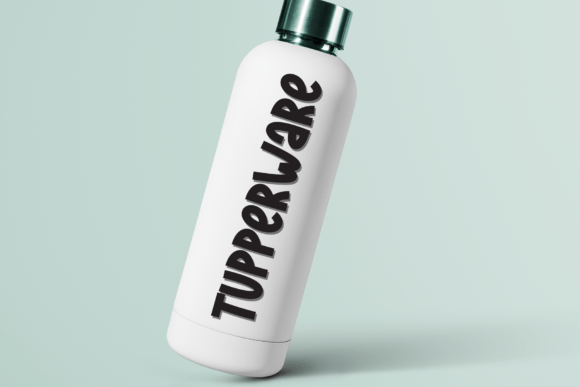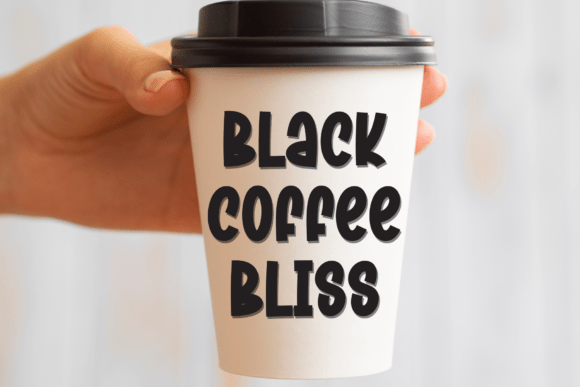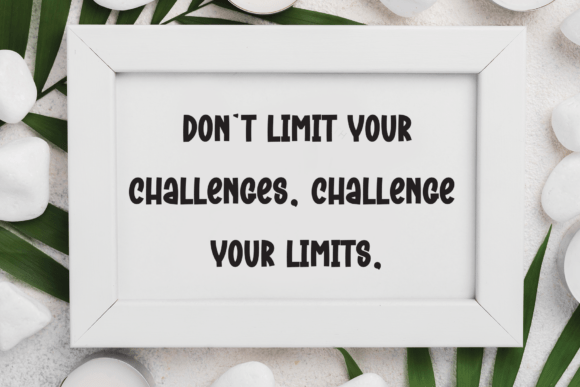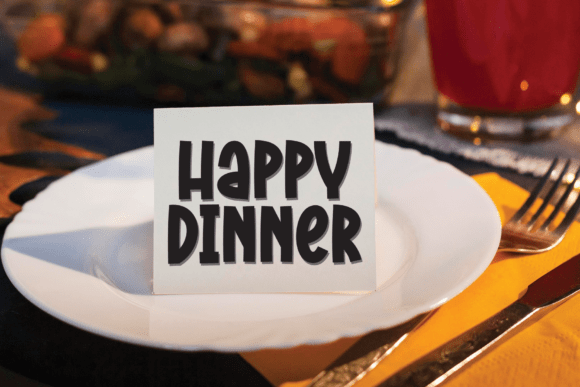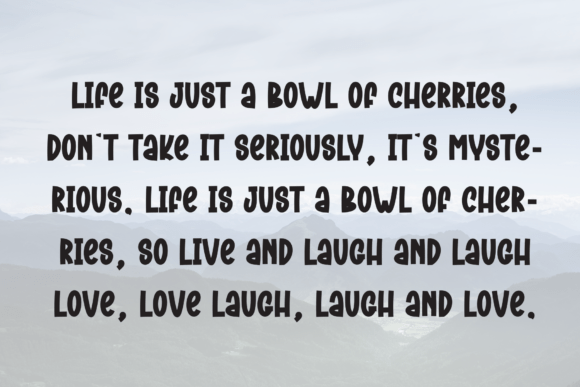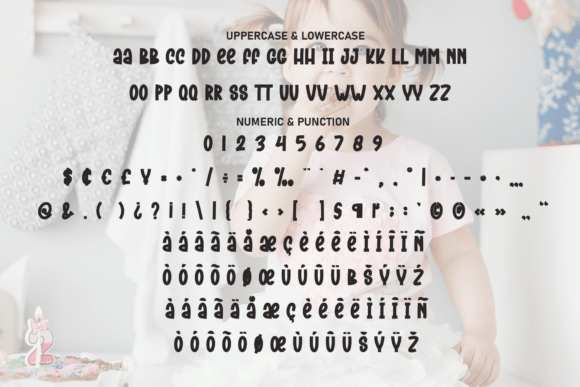
Baby Birthday Font: The Perfect Choice for Your Design Projects
Are you looking for a font that can add a touch of warmth and clarity to your design projects? Look no further than the Baby Birthday font. This casual and neat display font is designed to bring a sense of approachability and charm to your branding, headlines, and everyday designs. In this article, we’ll take a closer look at the Baby Birthday font and explore its features, benefits, and uses.
Clean Structure and Approachable Style
The Baby Birthday font boasts a clean structure and approachable style that makes it perfect for a wide range of design projects. Its balanced letterforms offer excellent readability and charm, making every message feel genuine and inviting. Whether you’re designing a logo, brochure, or social media post, this font is sure to make your content stand out.
Key Features of Baby Birthday Font
- Clean and neat design: The Baby Birthday font features a clean and neat design that is easy on the eyes.
- Approachable style: The font’s approachable style makes it perfect for designs that require a friendly and inviting tone.
- Balanced letterforms: The font’s balanced letterforms offer excellent readability and charm.
- Versatile: The Baby Birthday font is versatile and can be used for a wide range of design projects, from branding and headlines to everyday designs.
Benefits of Using Baby Birthday Font
There are many benefits to using the Baby Birthday font in your design projects. Here are a few:
- Instant recognition: The font’s clean and neat design makes it easy to read and understand, ensuring that your message gets across quickly and effectively.
- Emotional connection: The font’s approachable style and balanced letterforms help to create an emotional connection with your audience, making your message feel more genuine and inviting.
- Flexibility: The Baby Birthday font is flexible and can be used for a wide range of design projects, from print and digital materials to signage and merchandise.
- Unique look: The font’s unique look and feel can help your brand stand out from the competition and establish a strong visual identity.
Uses of Baby Birthday Font
The Baby Birthday font is versatile and can be used for a wide range of design projects, including:
- Branding: Use the Baby Birthday font to create a strong visual identity for your brand.
- Headlines: The font’s clean and neat design makes it perfect for headlines and titles.
- Everyday designs: Use the font for everyday designs, such as social media posts, flyers, and brochures.
- Signage: The font’s bold and clear design makes it perfect for signage and display purposes.
- Merchandise: Use the font to create custom merchandise, such as t-shirts, mugs, and tote bags.
Tips for Using Baby Birthday Font
Here are a few tips for using the Baby Birthday font effectively:
- Use it sparingly: Use the font sparingly to avoid overwhelming your design.
- Pair it with other fonts: Pair the Baby Birthday font with other fonts to create visual interest and hierarchy.
- Experiment with colors: Experiment with different colors to find the perfect combination for your design.
- Keep it simple: Keep your design simple and avoid clutter to ensure that the font is the focal point.
The Baby Birthday font is a versatile and charming font that can add a touch of warmth and clarity to your design projects. Its clean structure, approachable style, and balanced letterforms make it perfect for a wide range of designs, from branding and headlines to everyday designs. With its many benefits and uses, the Baby Birthday font is a great choice for designers and crafters looking to create visually appealing and effective designs.
Whether you’re a seasoned designer or just starting out, the Baby Birthday font is definitely worth checking out. So why not give it a try and see how it can elevate your designs?